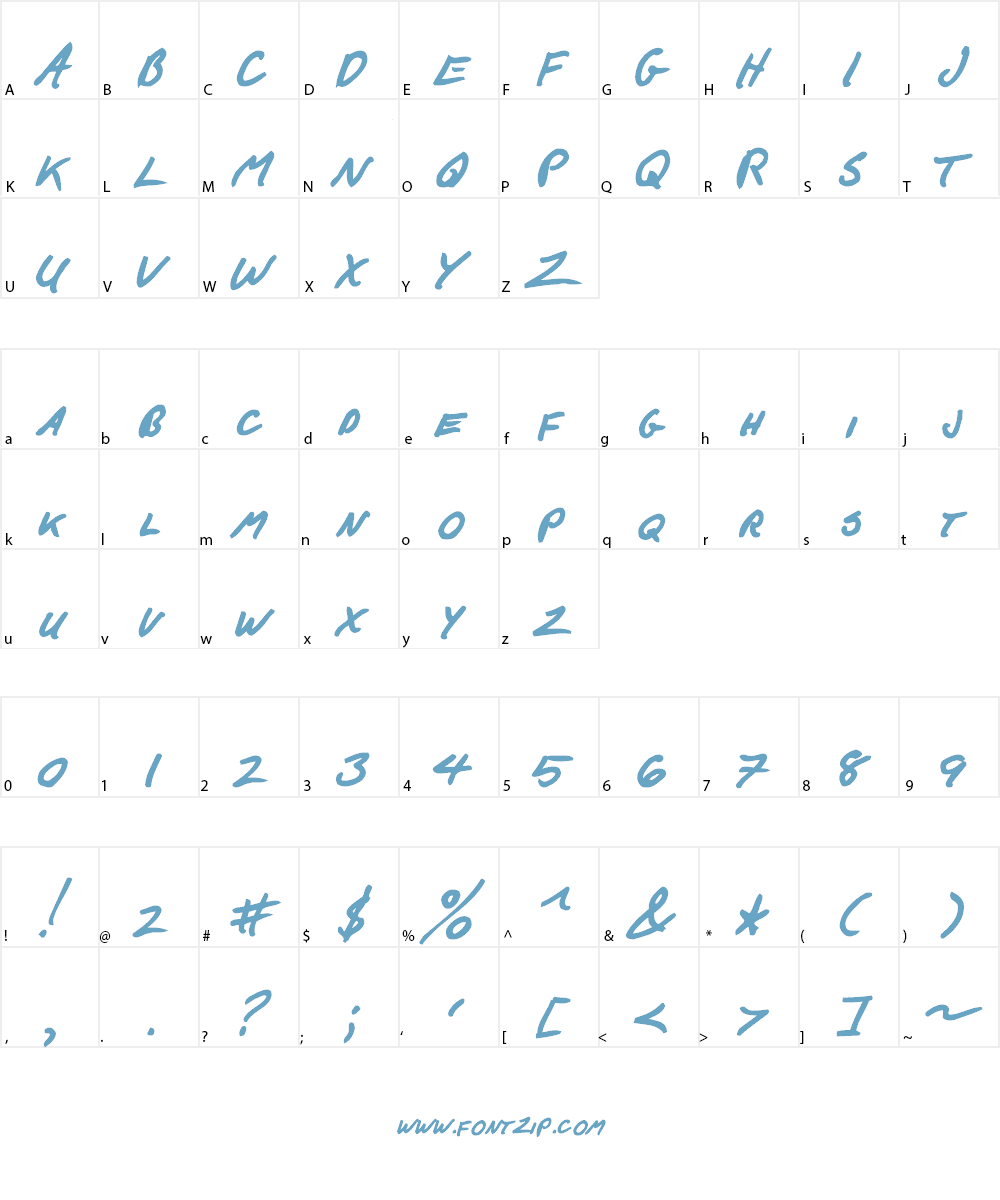
F*ck Beans is a clean, hand drawn, all caps typeface with a bunch of extra ligatures to give it a natural look, both as body copy, or as display type. Oh, and four styles 4 FREE.